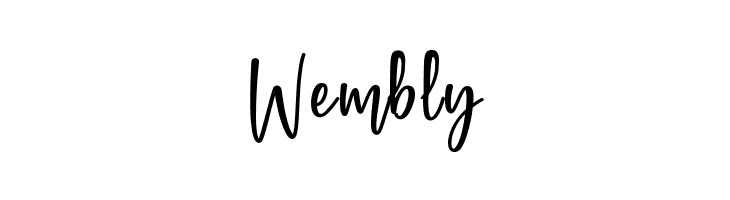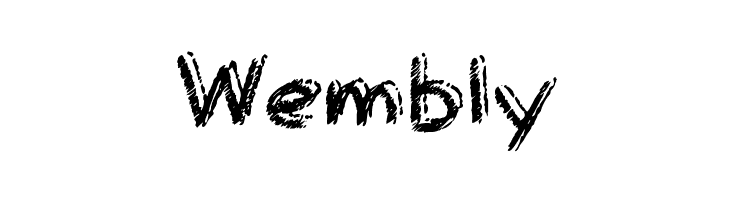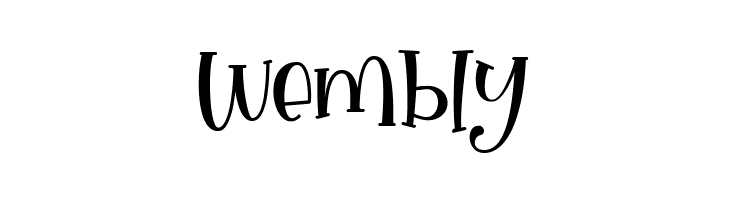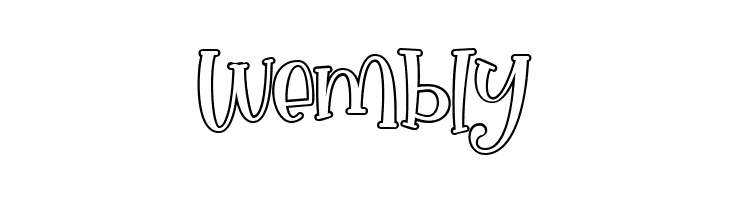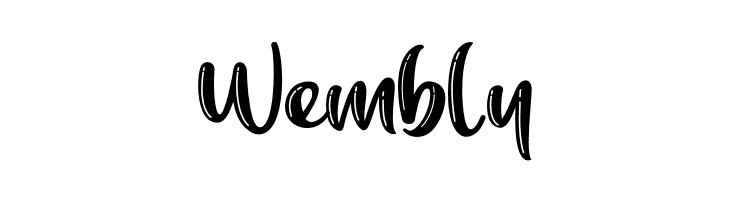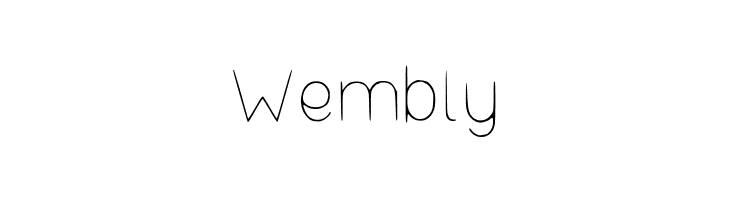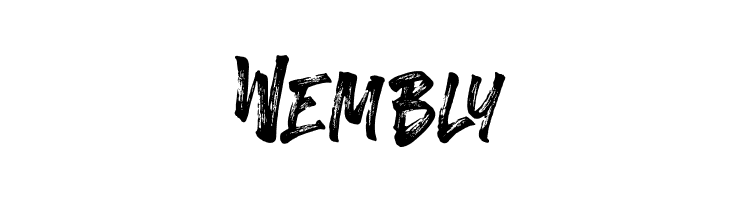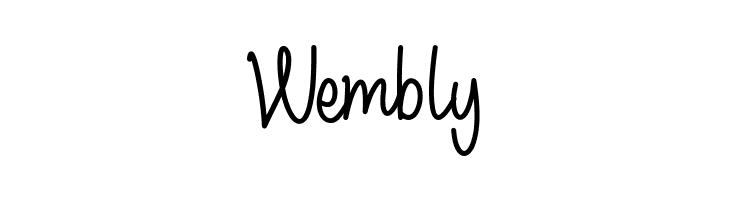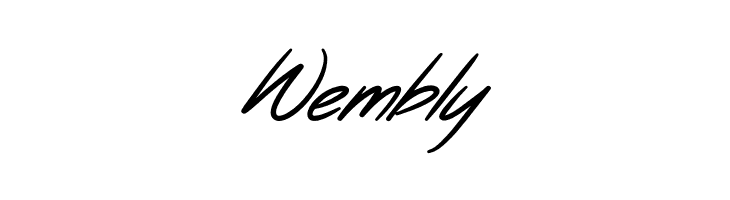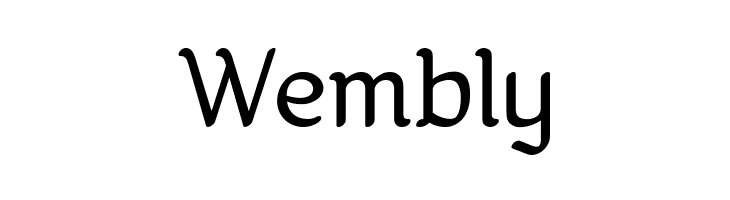
Catlove Font
A whimsical script font with cat ear motifs and a playful, handwritten style.
Agnella Bold Font
A modern, bold sans-serif font with geometric influences and uniform stroke widths.
Anisha Free Regular Font
An elegant script font with flowing, cursive strokes and decorative flourishes.
Samellya Personal Use Font
A decorative script font with elegant, flowing curves and ornate flourishes.
Karl Geoff Natural Font
A sophisticated script font with fluid, cursive strokes and elegant loops.
Autery Font
A decorative cursive font with elegant loops and consistent stroke width.
AnisaSans Font
A modern, rounded sans-serif font with a friendly and approachable style.
Richie Youthfield Alt Font
A playful, whimsical handwritten font with flowing cursive letterforms.
Brian Strait Font
A delicate and elegant handwritten font with flowing, interconnected letterforms.
Puspa Anisya Font
A playful handwritten font with rounded, irregular letterforms.
Advocate Script Font
A bold, elegant script font with flowing, connected characters.
Callaghands Font
A dynamic, brush-style font with bold, expressive strokes.
Browman Font
A bold, playful handwritten font with a lively and energetic style.
Earcy Day Font
A graceful and flowing script font with a handwritten style.
Winlove - Personal Use Font
A fluid and elegant script font with a modern, handwritten style.
Advisor Personal Use Regular Font
A sophisticated, elegant handwritten font with fluid, continuous strokes.
Zelifa Font
An elegant, flowing script font with ornate uppercase and smooth lowercase letters.
Puspa Anisya Script Font
A playful and elegant script font with flowing, cursive letters.
FadScript Font
A flowing, cursive script font with elegant, connected characters.